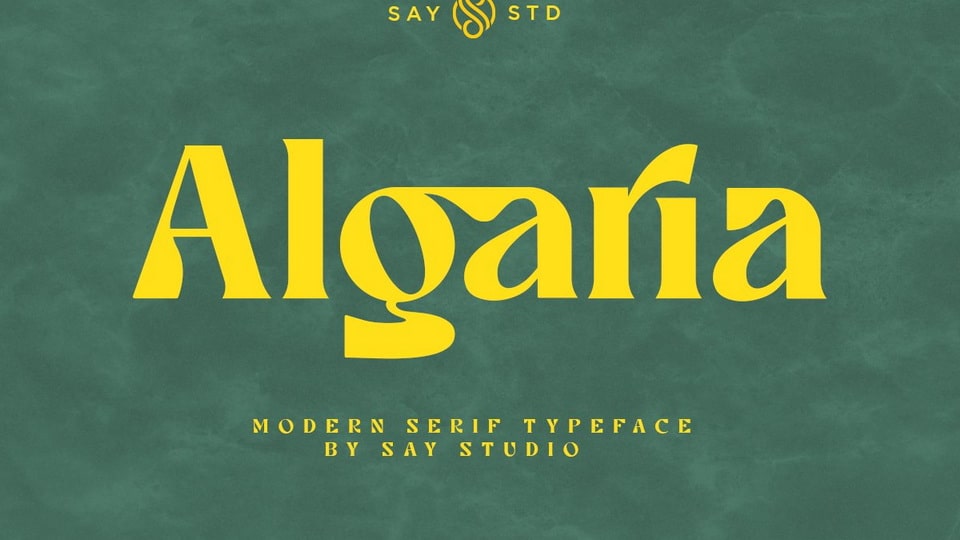
Download Algaria font, a modern serif typeface. Algaria font provides a unique collection of glyphs that are bold and unique shape.
Designer: Saystudio